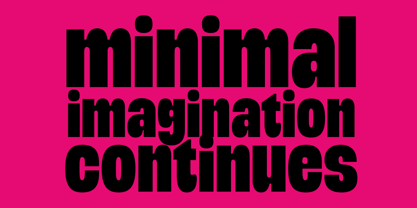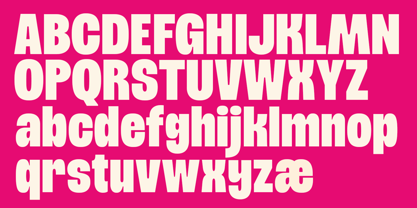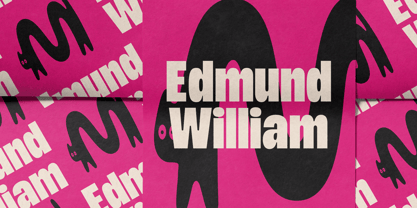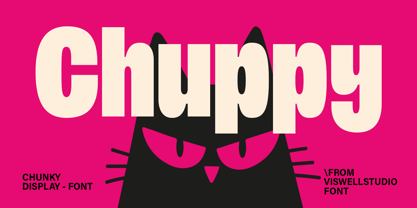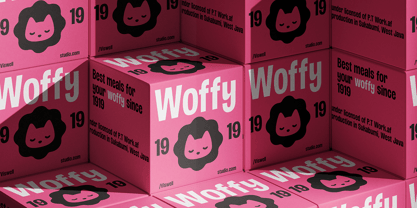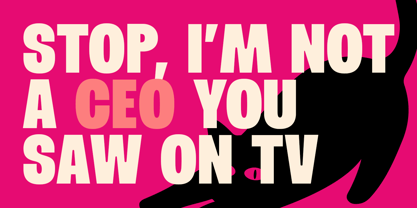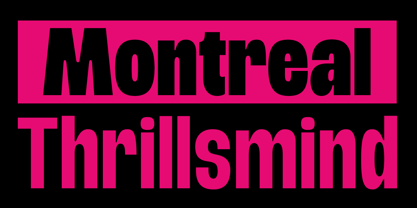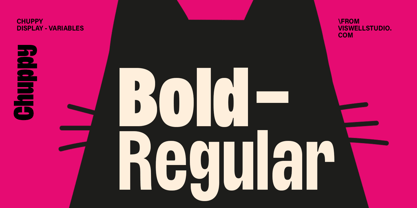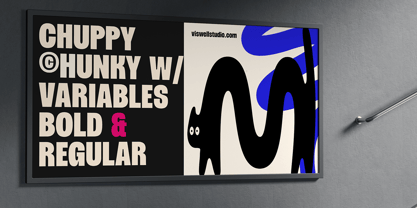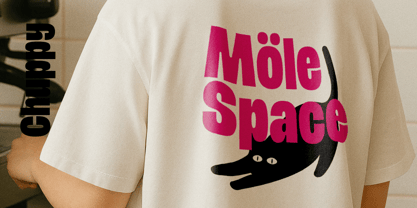
Chuppy
by Viswell
The Chuppy Font Family was designed by Najril Ilham Amrullah and published by Viswell. Chuppy contains 2 styles and family package options. More about this family
Chuppy is a font that instantly adds a sense of fun to any design. Featuring chunky shapes and rounded corners, it boasts a playful personality that ensures your text stands out without appearing overly serious. Available in Regular and Bold weights, Chuppy includes uppercase and lowercase letters, numerals, punctuation, and multilingual support. This versatility makes it ideal for a variety of applications, including logos, packaging, posters, social media, merchandise, and other creative projects. Whether you're crafting a playful brand identity, designing a striking headline, or seeking a font with unique character, Chuppy is the perfect choice. Its friendly and eye-catching design makes it a versatile display font that can bring a big smile to your designs.
Designers: Najril Ilham Amrullah
Foundry: Viswell